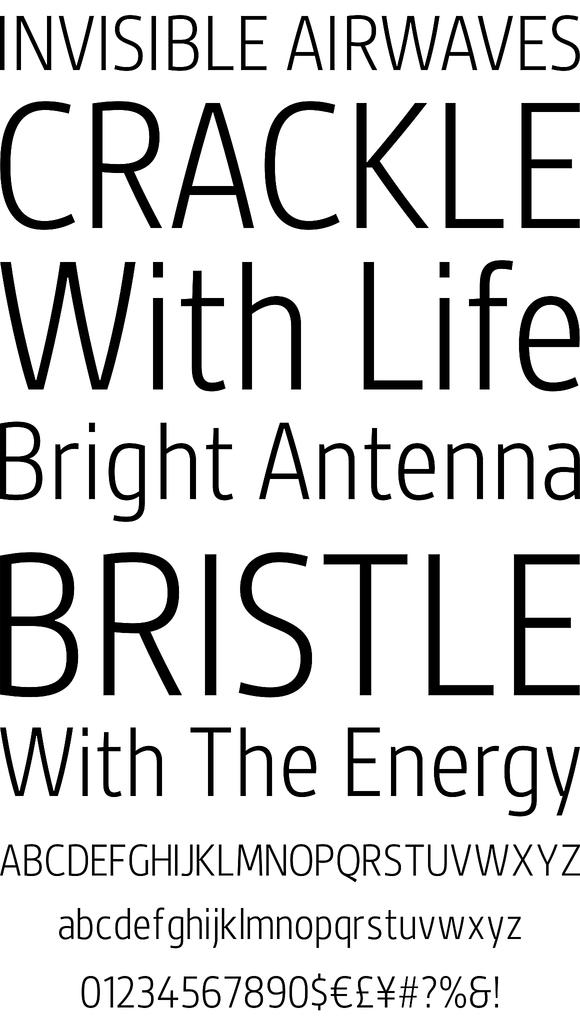
Gesta Condensed is the condensed version of Gesta typeface. With it's clean shapes and slightly curved strokes, Gesta Condensed combines a distinctive and warm feel with a modern look.
Gesta Condensed is the condensed version of Gesta typeface. With it's clean shapes and slightly curved strokes, Gesta Condensed combines a distinctive and warm feel with a modern look. It is available in four weights from light to bold with four matching italics and it's Open type features include small caps and old style figures for every weight.